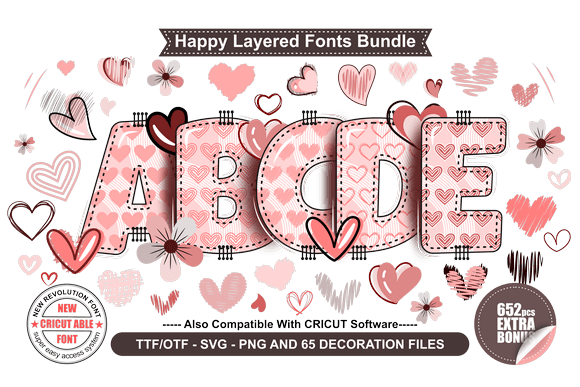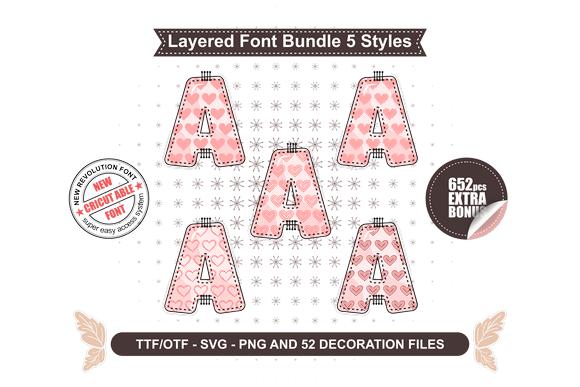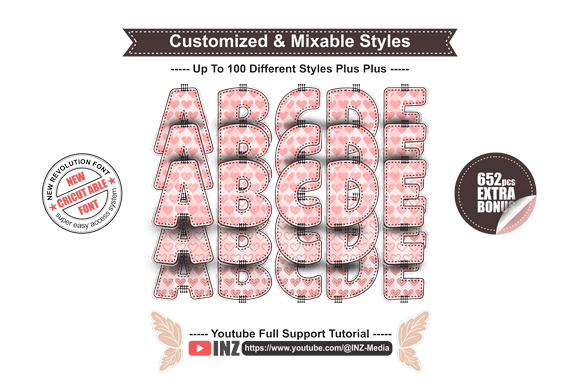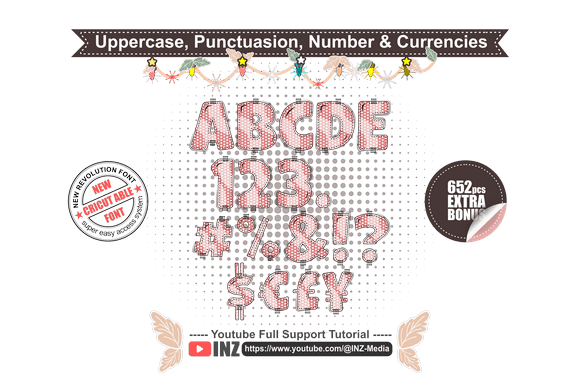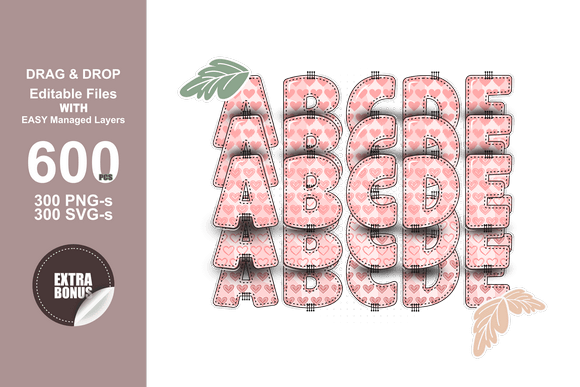
Unlock the Power of Happy Love with the Perfect Font
You know that feeling when you’re crafting the perfect card for a loved one, or designing a beautiful decoration for a special occasion? The moment when all the elements come together, and your project feels truly special. That’s exactly what the Happy Layered Font is designed to help you achieve.
This lovely font bundle is a treasure trove of bold, love-themed layered letters adorned with hearts and playful patterns. With its versatility and charm, it’s perfect for Valentine’s Day, romantic designs, or cheerful decorations. The bundle includes a range of formats, including TTF, OTF, SVG, and PNG, making it compatible with Cricut and other design software. Whether you’re a crafter, designer, or DIY enthusiast, the Happy Layered Font is an invaluable addition to your creative toolkit.
Key Features of Happy Layered Font
- Font Family: Happy Layered Font is a unique, hand-drawn font with a playful and cheerful feel.
- Unique Characteristics: The font features layered, hand-drawn elements, giving it a one-of-a-kind appearance that adds visual interest to any design.
- Character Set: The font includes a wide range of characters, including uppercase and lowercase letters, numbers, punctuation marks, and special characters.
Happy Layered Font Review
I recently had the chance to work with the Happy Layered Font, and I must say, it’s a unique and eye-catching choice for designers. ✨ Here are some of its standout features:
- Playful, layered design that adds visual interest to text
- Perfect for social media, advertising, and other applications where a fun, youthful vibe is desired
- Works well in digital formats, including web and mobile
However, I also encountered some limitations that might affect its usability: ⚠️
- May be difficult to read in certain situations, particularly in small font sizes or at a distance
- Could be overwhelming if used extensively throughout a design
- Requires careful balancing to prevent visual clutter
Overall, I think the Happy Layered Font is a great choice for designers who want to add some personality and whimsy to their work. While it may not be suitable for every project, it’s definitely worth considering for the right application.
The Happy Layered Font is perfect for creating eye-catching titles, headings, and quotes. Use it to add a touch of whimsy and personality to your designs. Some common use cases include:
- Social media graphics and ads
- Business logos and branding
- Party and event decorations